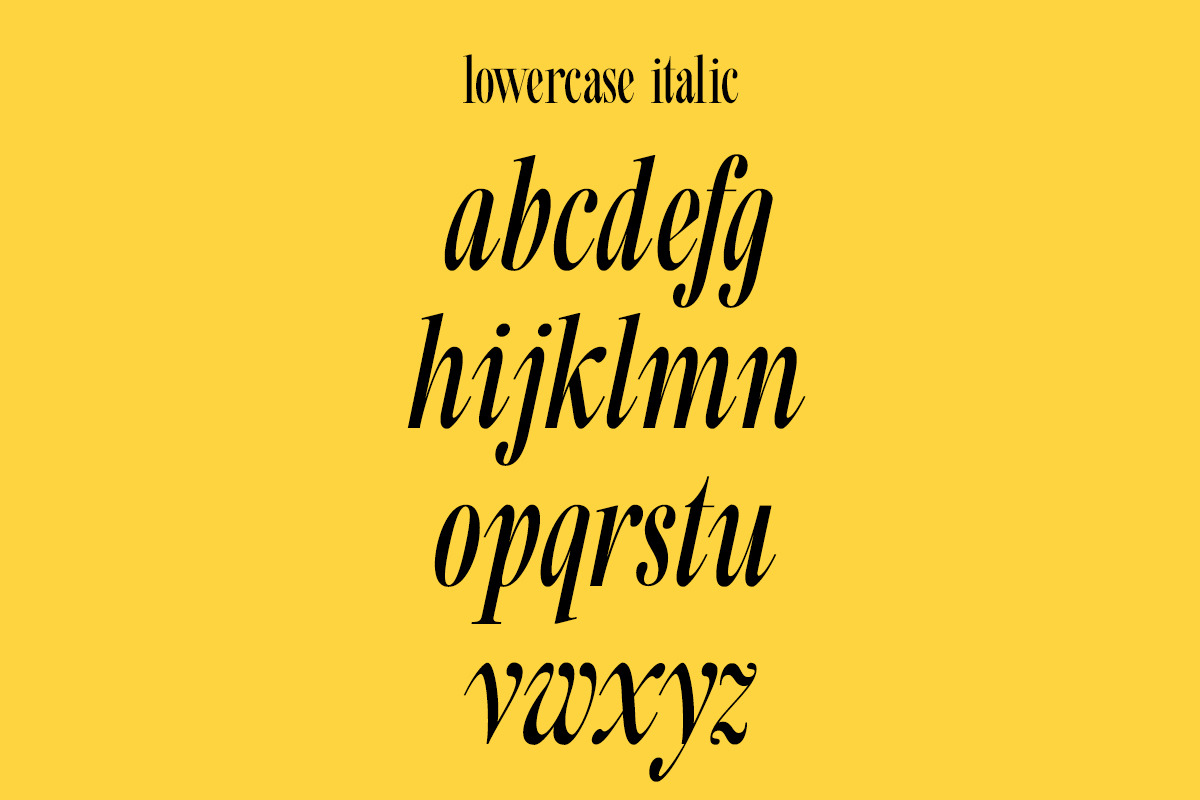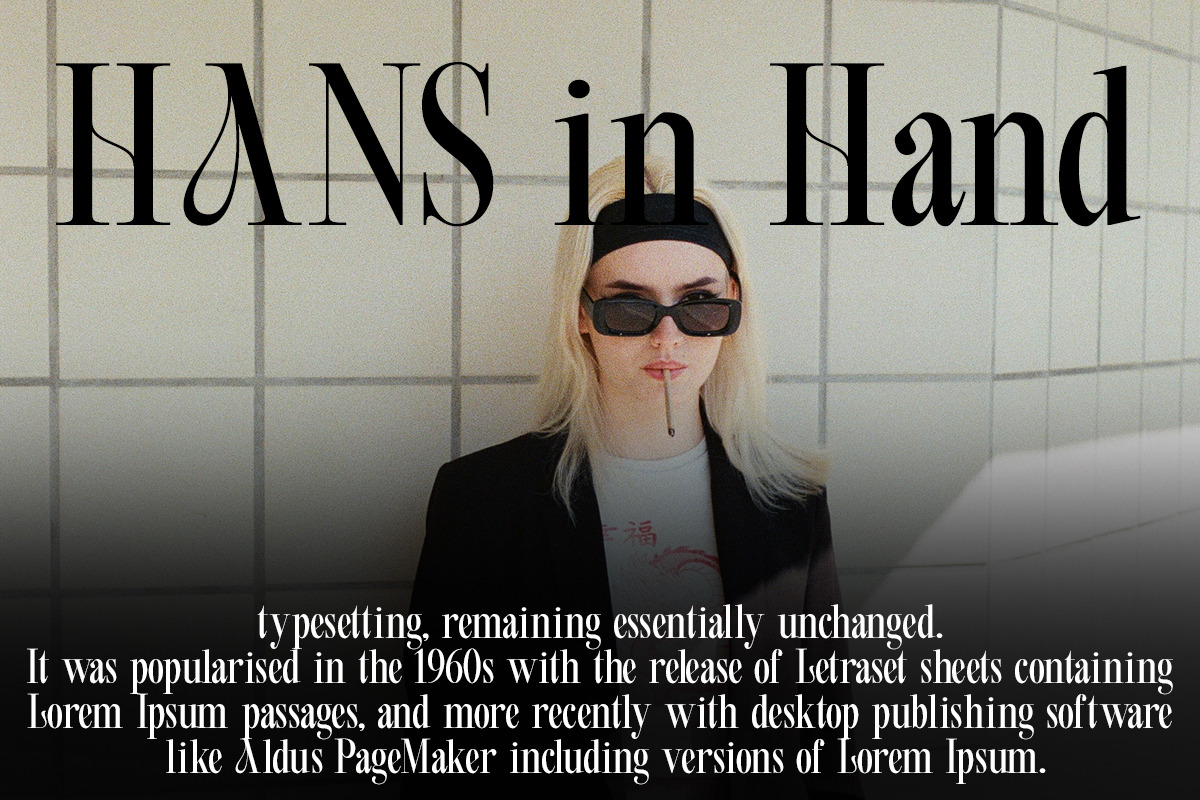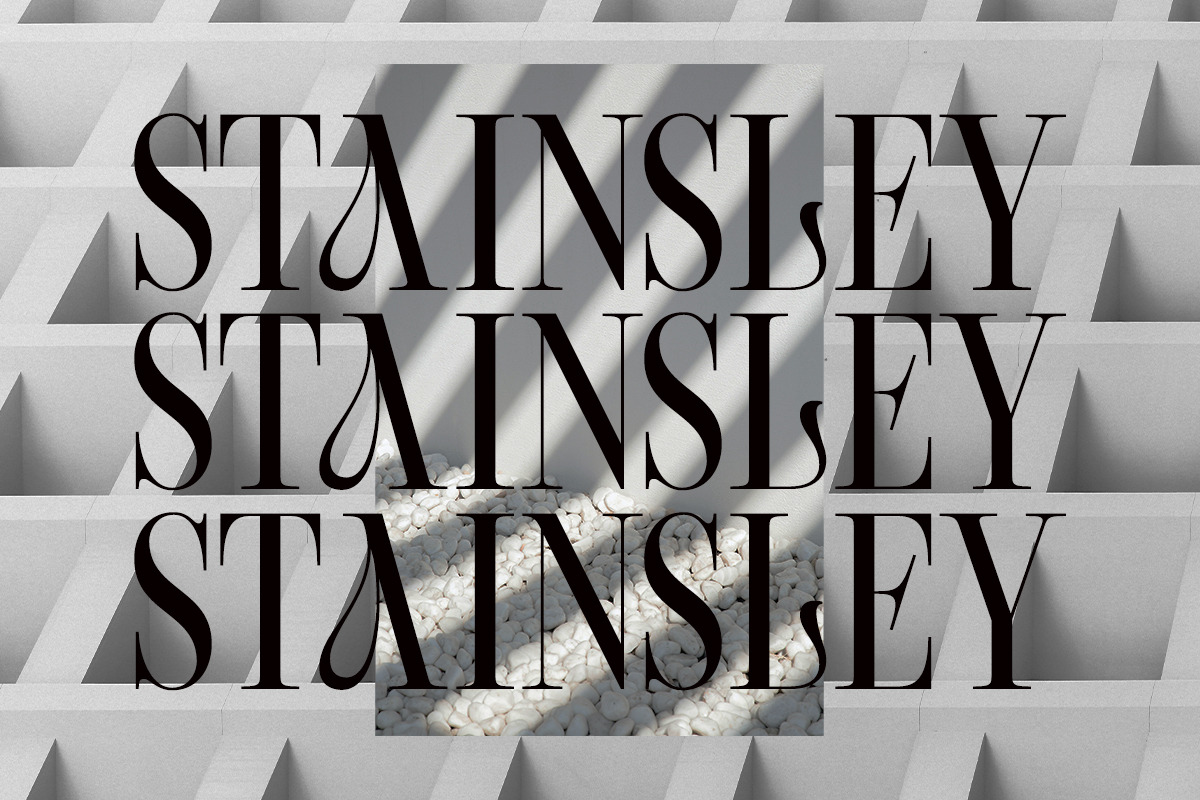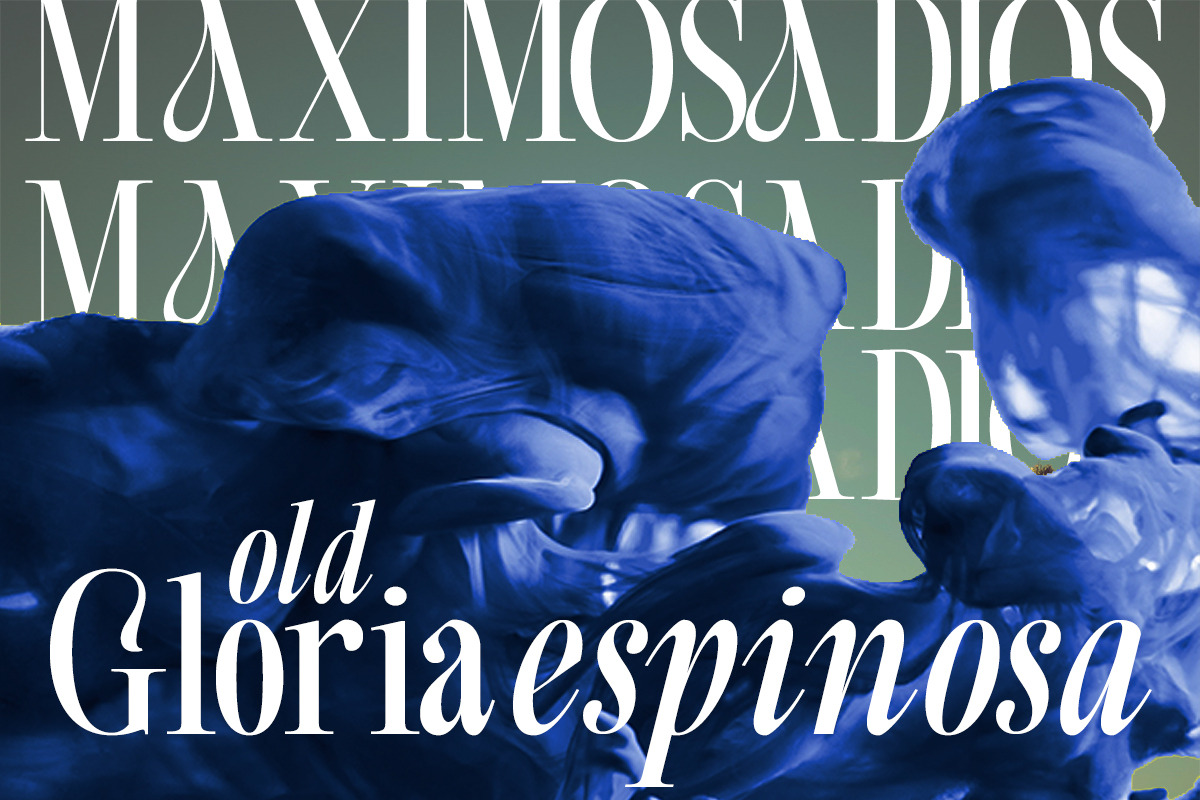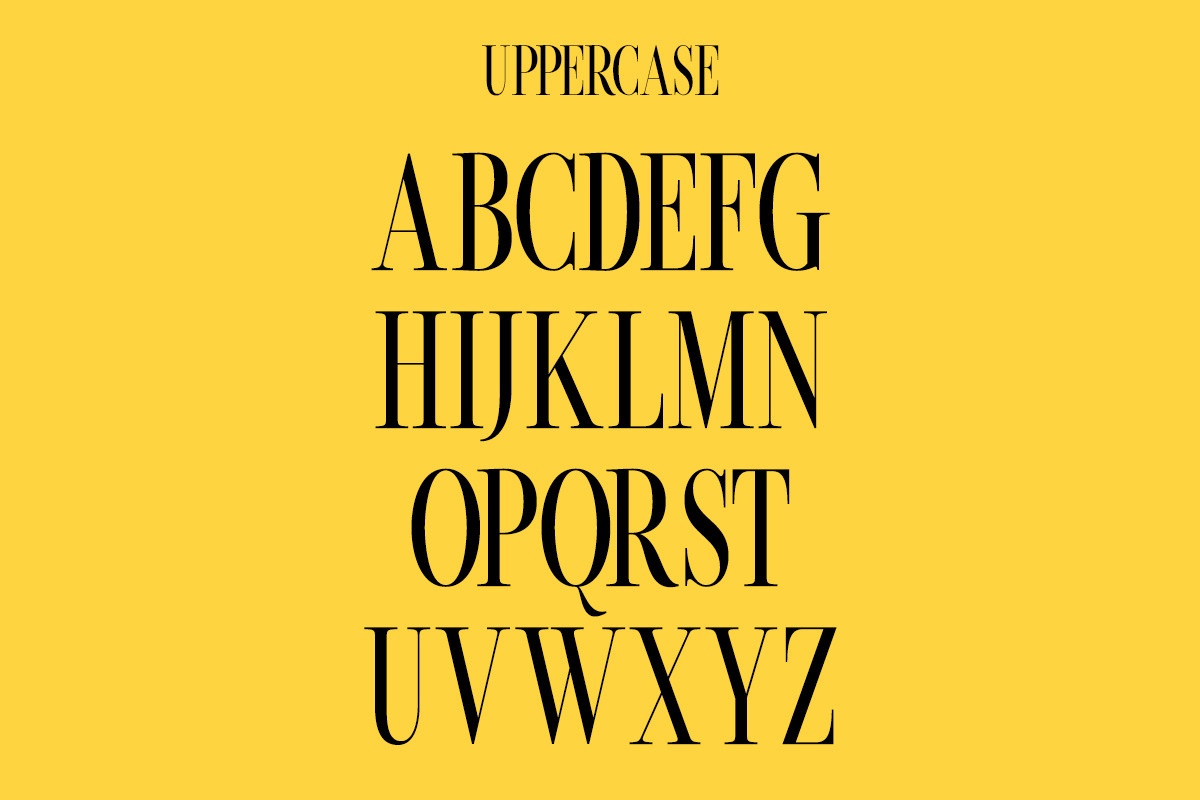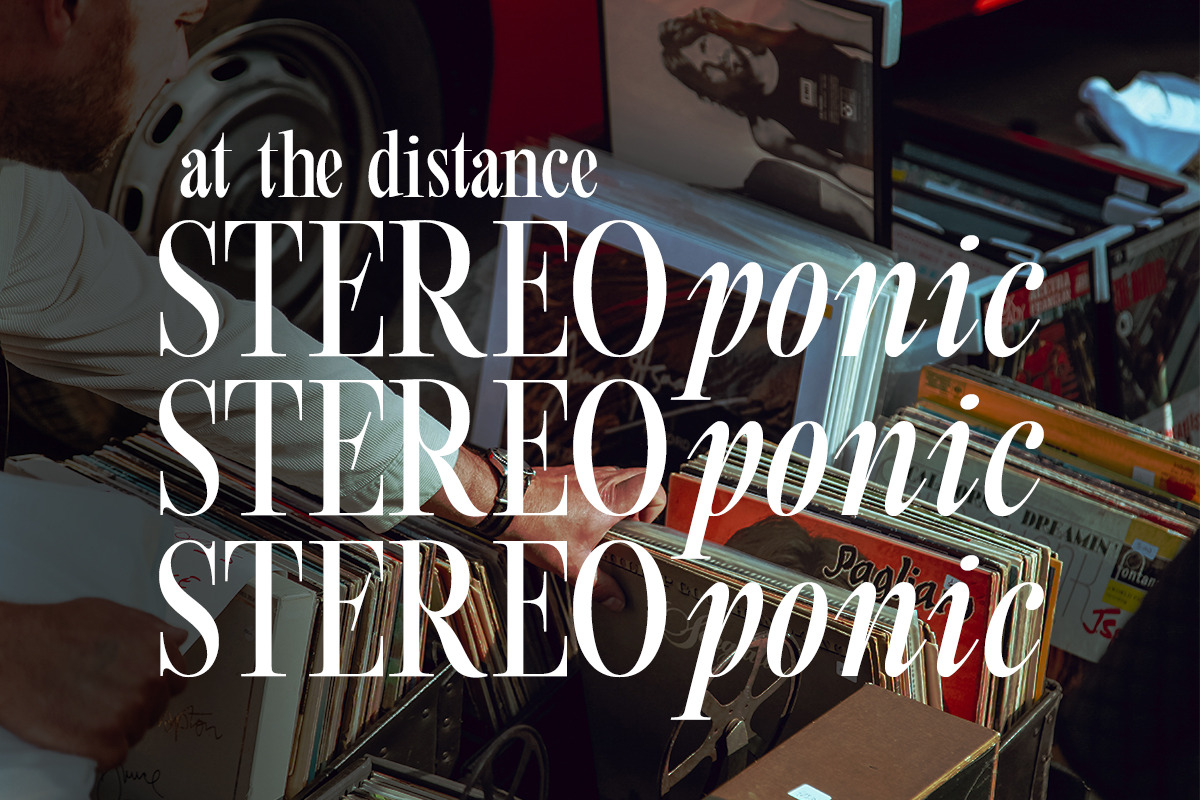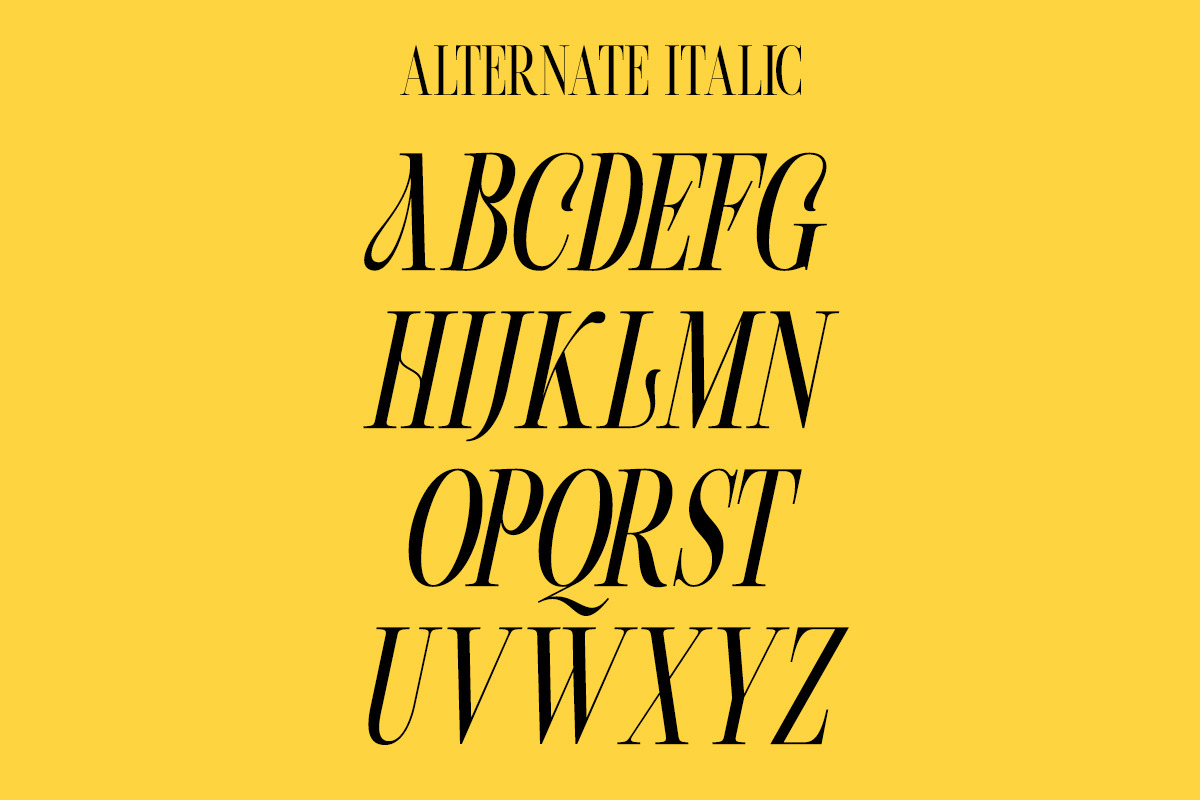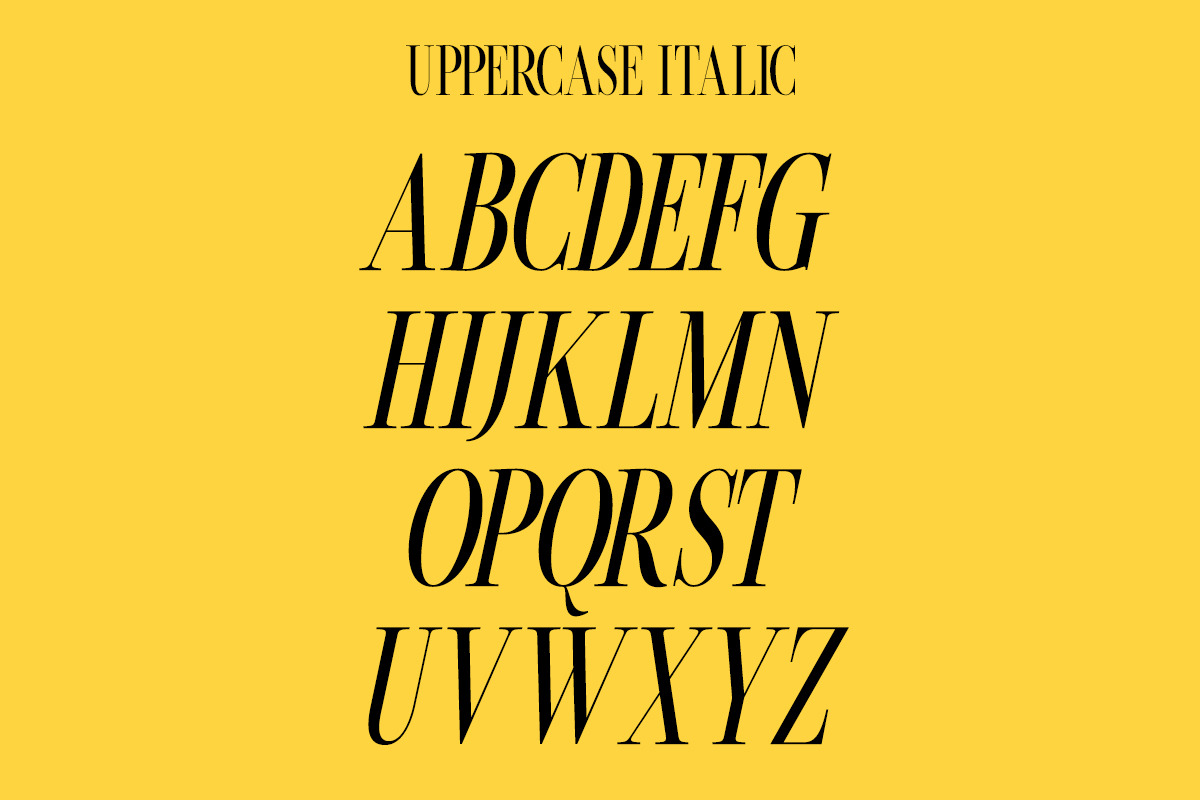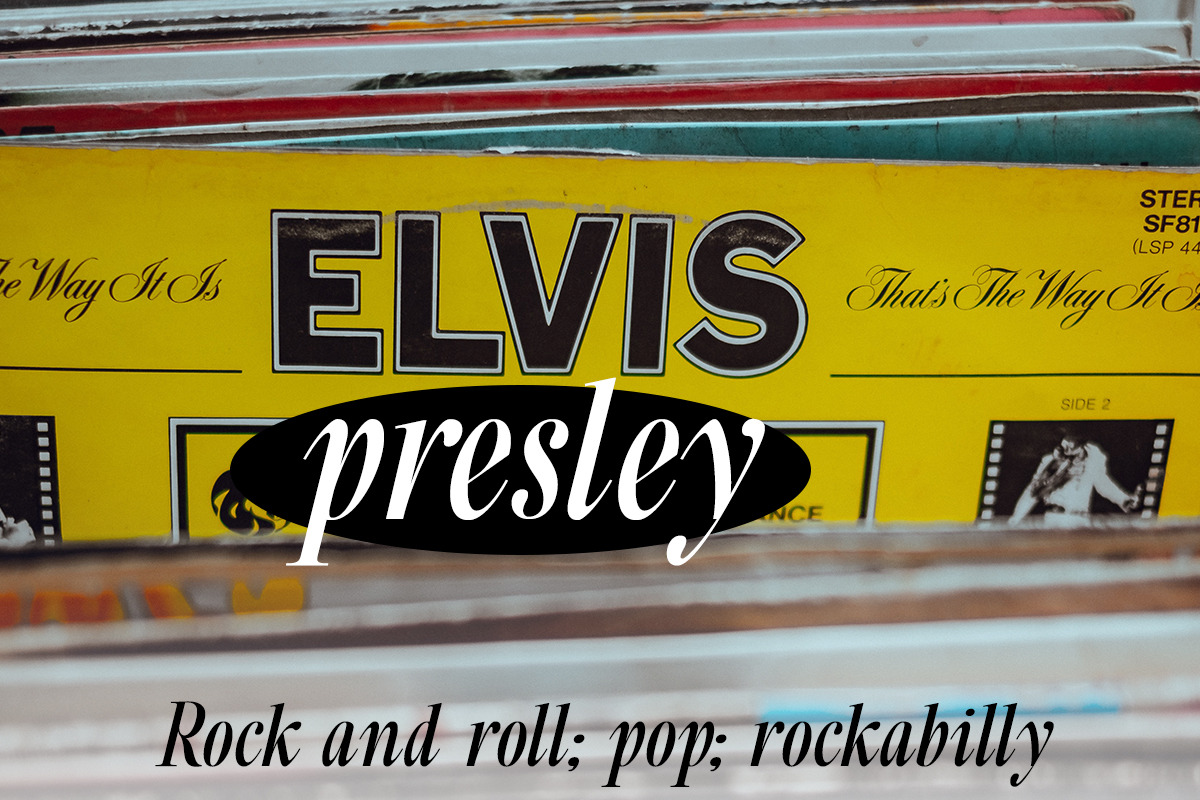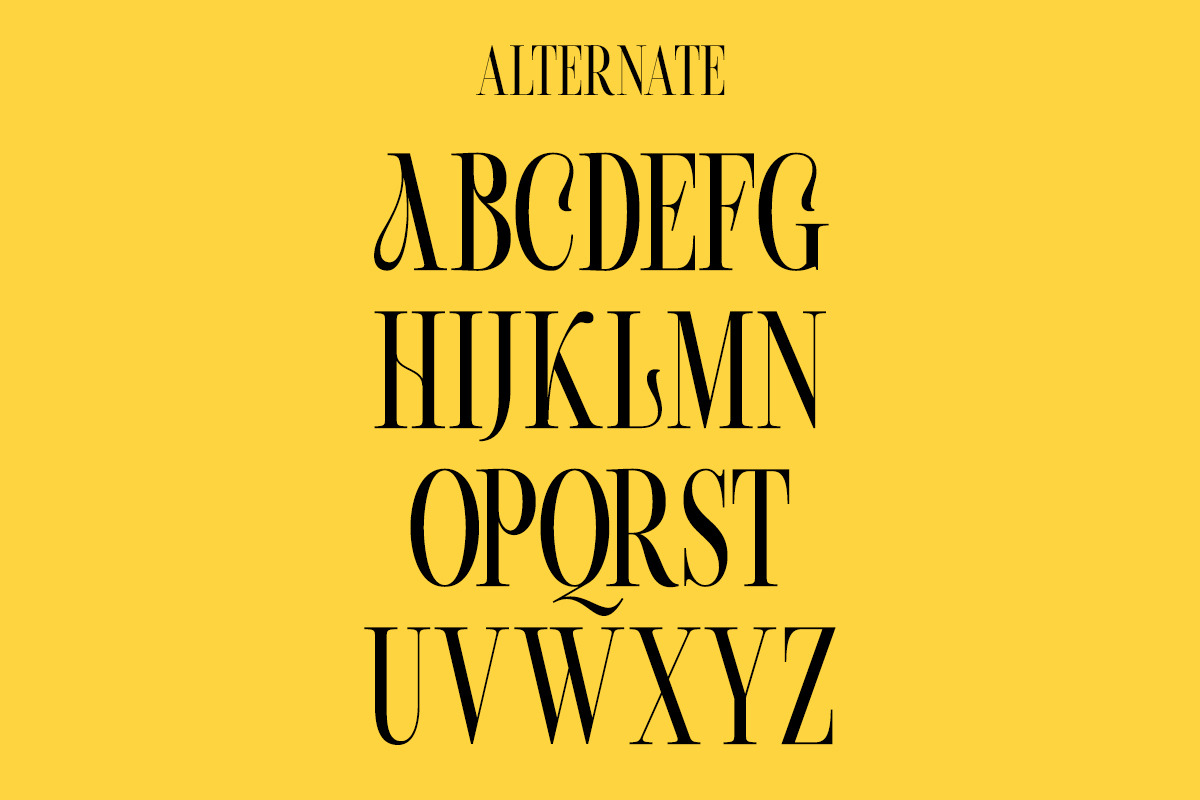
Beachwalk | Elegant Retro Serif
Beachwalk fonts includes uppercase letters, lowercase letters, numerals, a large range of punctuation. Serif font with rertro style include alternate uppercase characters. Created for poster, web design, branding, illustrations, badges and some other works.